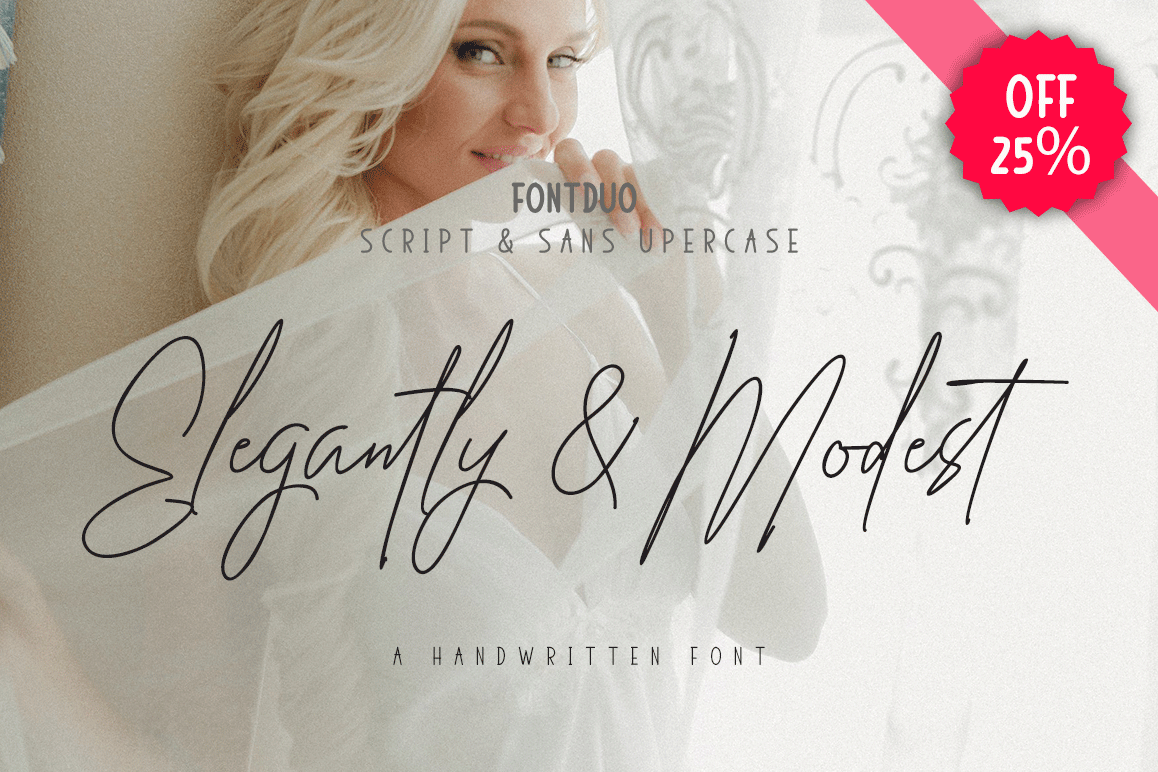
Elegantly&Modest
Elegantly&Modest a work that is purely a result of handwriting, has a natural characteristic. this is perfect for invitations, signatures, blogs, social media, business cards, product brands.elegantly has two sets of letters, namely Stylistic standard and Stylistic Alternate. and includes uppercase and lowercase letters, numbers and punctuation marks, also equipped with 42 ligature.FILE INCLUDE